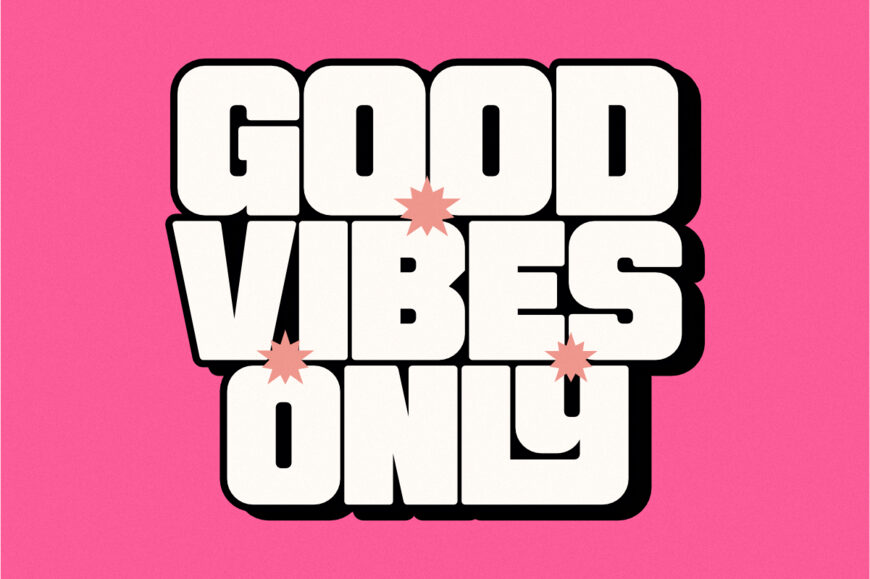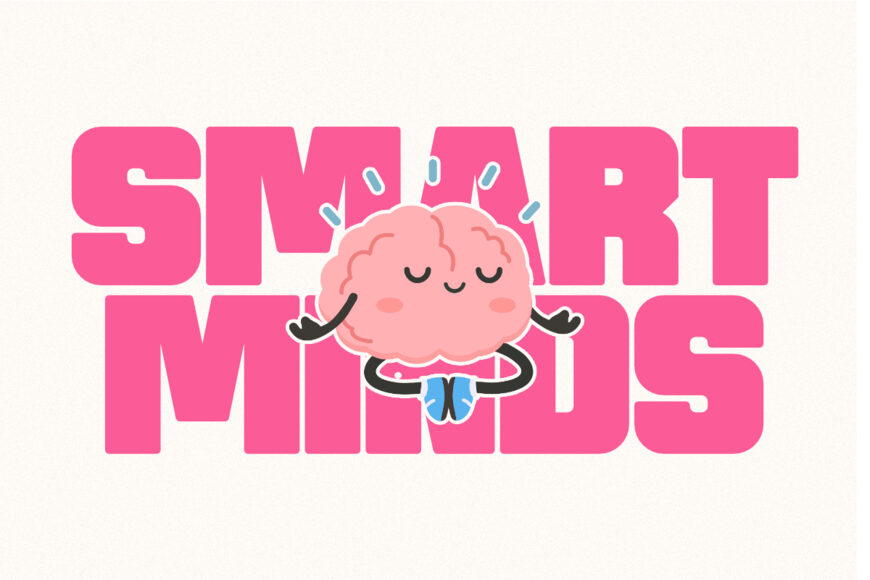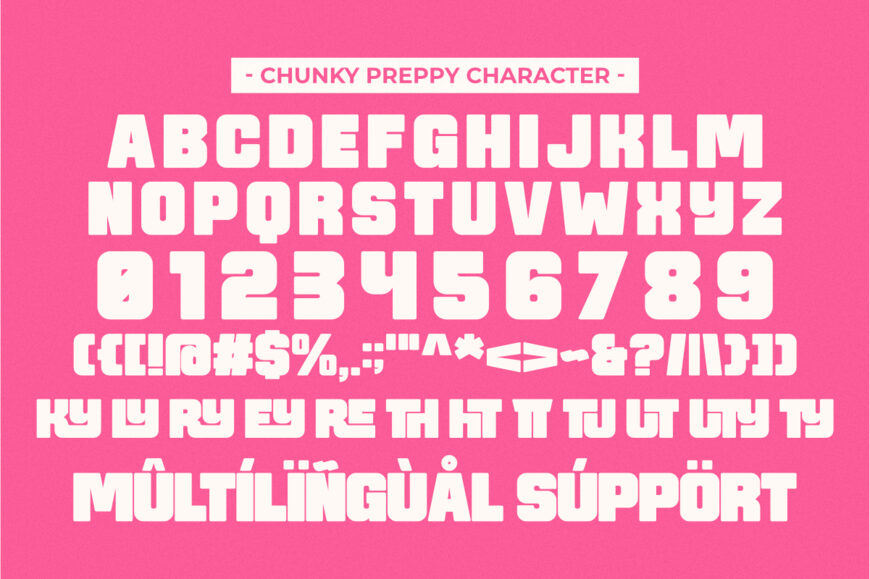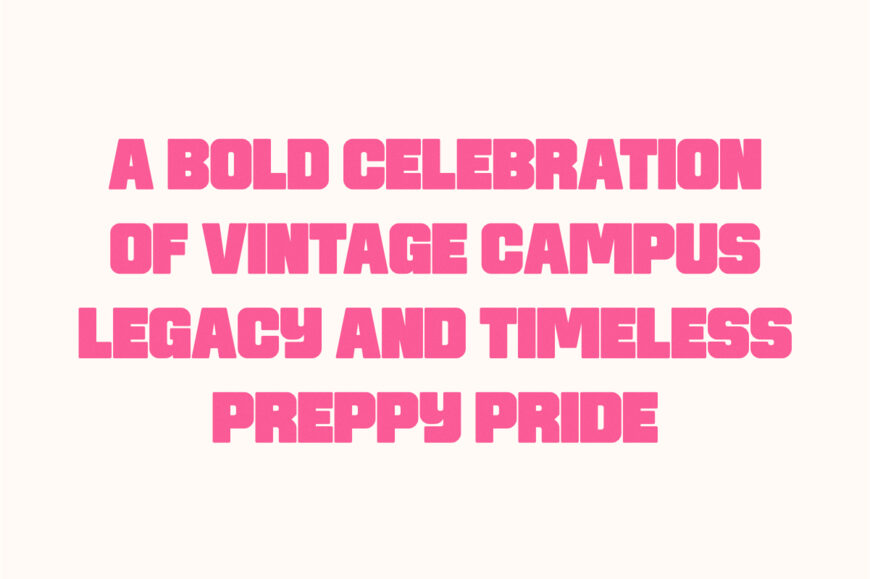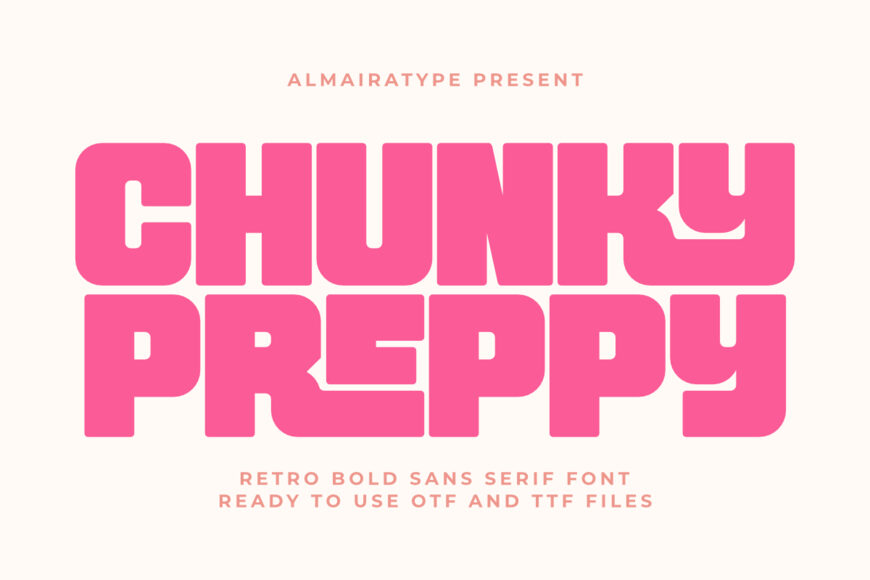
Make a bold, commanding, and delightfully nostalgic statement with Chunky Preppy, an ultra-bold retro interlocking sans serif font engineered for creators who want their headlines to pop with a heavy, confident charm.
Meticulously structured with a massive display weight, wide blocky baselines, and unique integrated geometric cutout junctions, this versatile font brings an instant blend of vintage varsity warmth and clean modern urban fashion to any creative canvas.